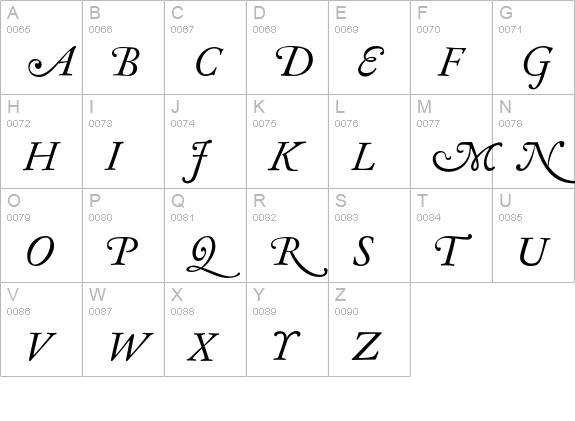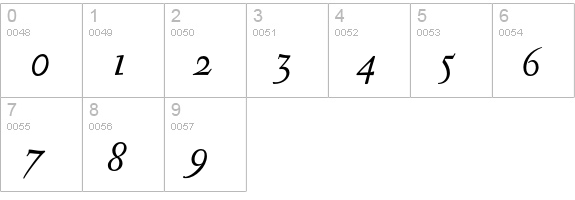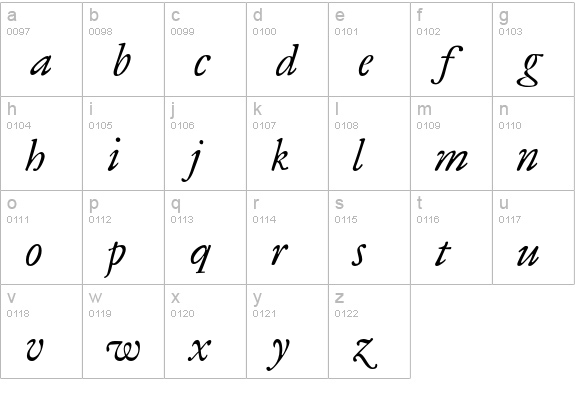
Antique Ancienne CE Italic is a distinctive, italic variant in the Antique typeface family \xE2\x80\x94 well suited to design and typography projects.
Antique Ancienne CE Italic font is a classic and elegant typeface that exudes sophistication and timelessness. Its intricate details and graceful curves make it perfect for adding a touch of vintage charm to any project. This font captures the essence of antique beauty with a modern twist, making it versatile for a wide range of design applications. Whether you are working on a wedding invitation, a logo design, or a branding project, Antique Ancienne CE Italic font will bring a sense of refinement and luxury to your work. Its italic style adds a sense of movement and flair, making it ideal for creating dynamic and eye-catching designs. Best of all, Antique Ancienne CE Italic font is available for free download at FontsMarket.com. Now you can easily access this exquisite typeface and elevate your designs with its timeless elegance. Don't miss out on the opportunity to enhance your projects with this stunning font - download it for free today!